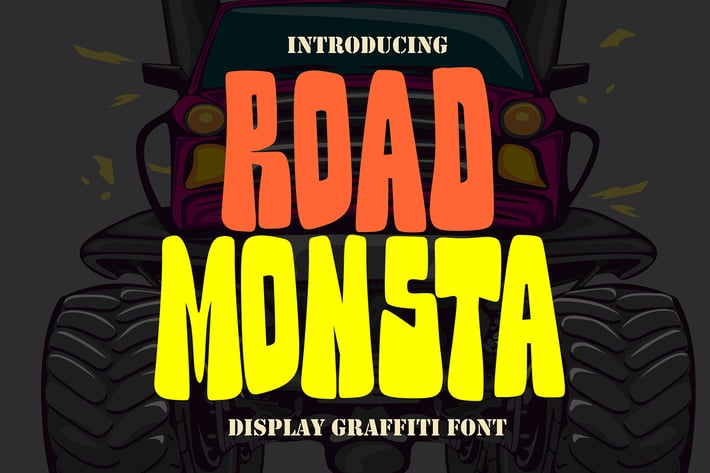
Road Monsta - Display Graffiti Font
Unleash the urban spirit with Road Monsta Display Graffiti Font. Fuel your designs with the raw energy of the streets using this bold typeface. Each letter is a statement, a testament to the rebellious creativity that graffiti embodies. Whether it's posters, apparel, or branding projects, Road Monsta dominates the visual landscape, turning heads and sparking conversations. With its commanding presence and edgy charm, this font transforms ordinary words into extraordinary visual experiences. Embrace the grit, embrace the attitude – choose Road Monsta for designs that roar with life.
Character Set A-Z (All-caps)
Numerals and Punctuation (OpenType Standard)
Accents (Multilingual characters)